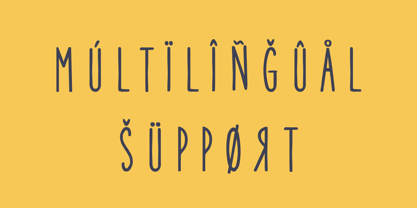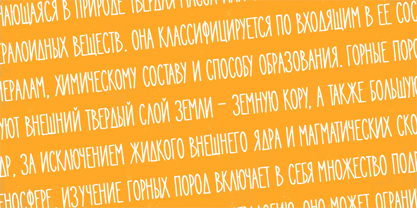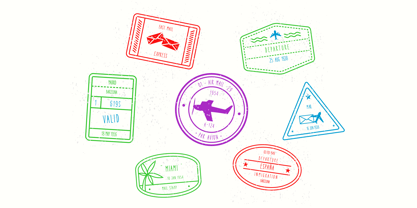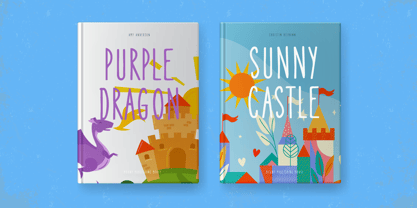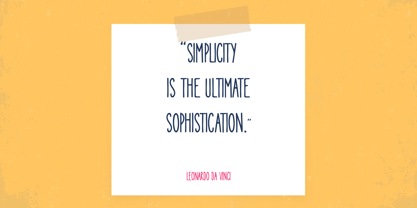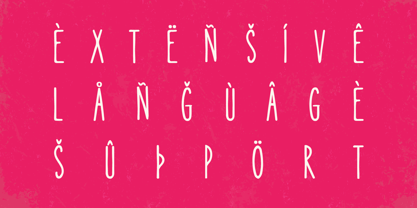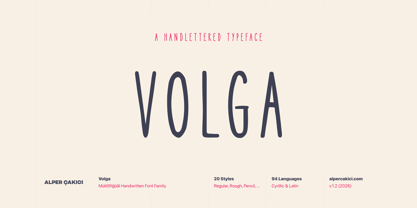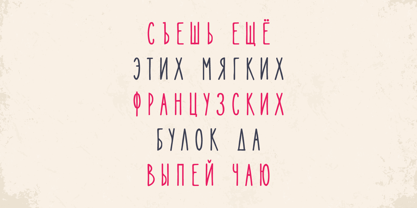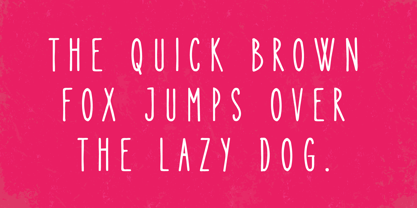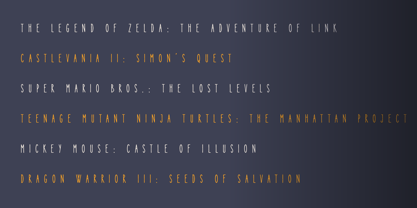
Volga
The Volga Font Family was designed by Alper Çakıcı and published by AlperCakici. Volga contains 20 styles and family package options. More about this family
Volga is a versatile handwritten typeface family designed to capture the natural rhythm and expressive texture of real handwriting. Built for designers who want authenticity and personality, Volga blends casual human strokes with a wide range of stylistic variations, making it suitable for everything from branding and packaging to editorial layouts and social media graphics. The family includes multiple expressive styles that simulate different drawing tools and writing surfaces. From the smooth and balanced Regular style to the textured energy of Rough, Brush, and Chalk, Volga provides designers with a rich palette of handwritten moods. The Pencil, Graphite, and Wax styles evoke sketchbook aesthetics, while Angular, Liner, and Eroded add distinctive character for display use. With matching italics across most styles, Volga allows for dynamic typographic hierarchy and flexible composition. Each instance maintains a consistent handwritten DNA while offering its own tone—from casual and friendly to gritty and artistic. Designed with broad Latin language support, Volga works across a wide range of international projects. Its organic strokes and textured forms make it perfect for posters, branding, packaging, apparel, book covers, quotes, invitations, social media graphics, and creative editorial design. Whether you need the softness of pencil handwriting, the energy of a brush stroke, or the rough charm of chalk lettering, Volga delivers a complete handwritten toolkit for expressive typography.